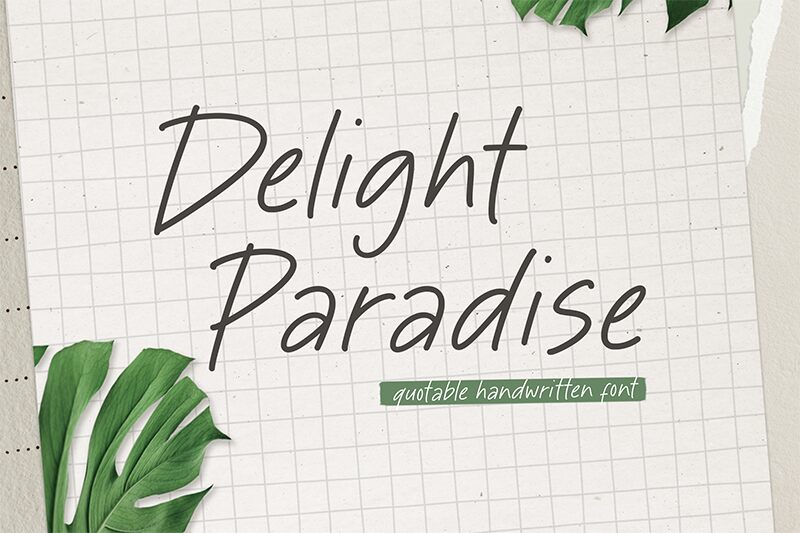
Delight Paradise
Delight Paradise is a simple font that has a charming personality. It is a handwritten script font designed by Timur Type in light weight with a lot of options and can be used to give a creative touch to your projects.
It’s perfect for adding some drama to magazine articles, greeting cards, invitations, flyers, posters etc. This new Delight Paradise script font has a very free and flowing style so it can really add class and uniqueness to your texts.